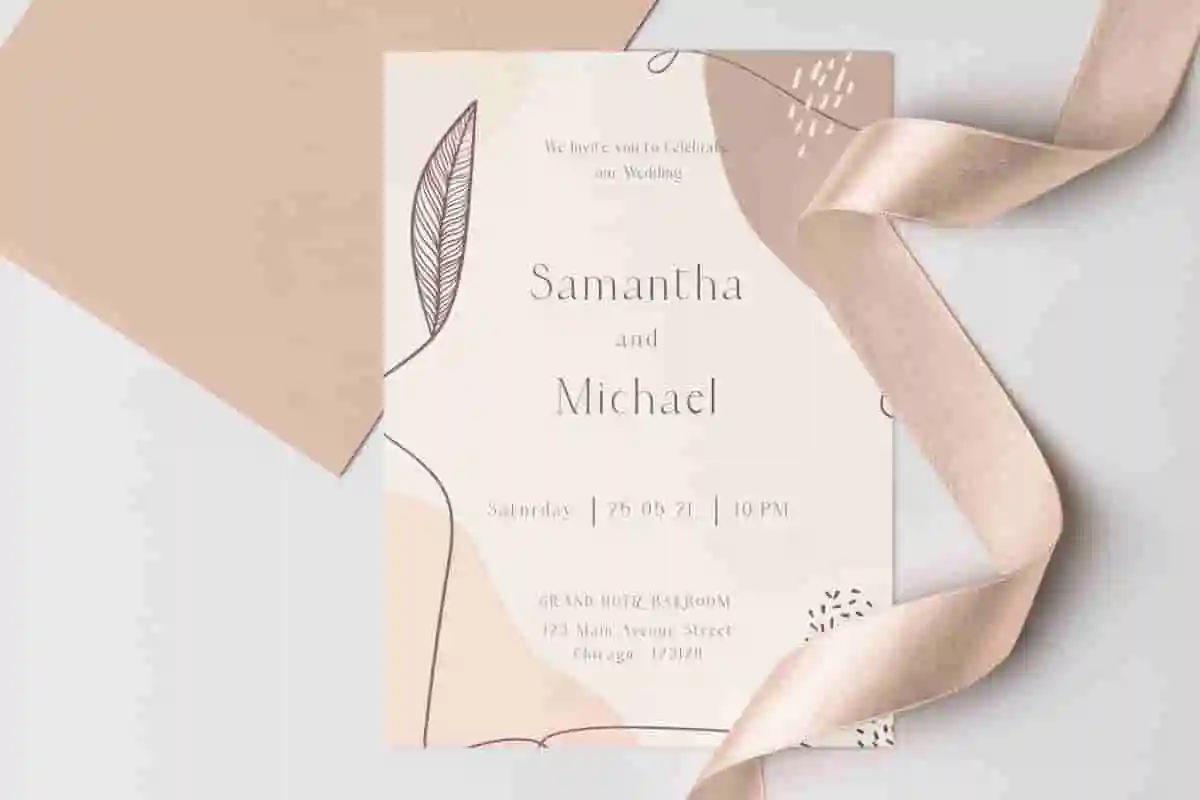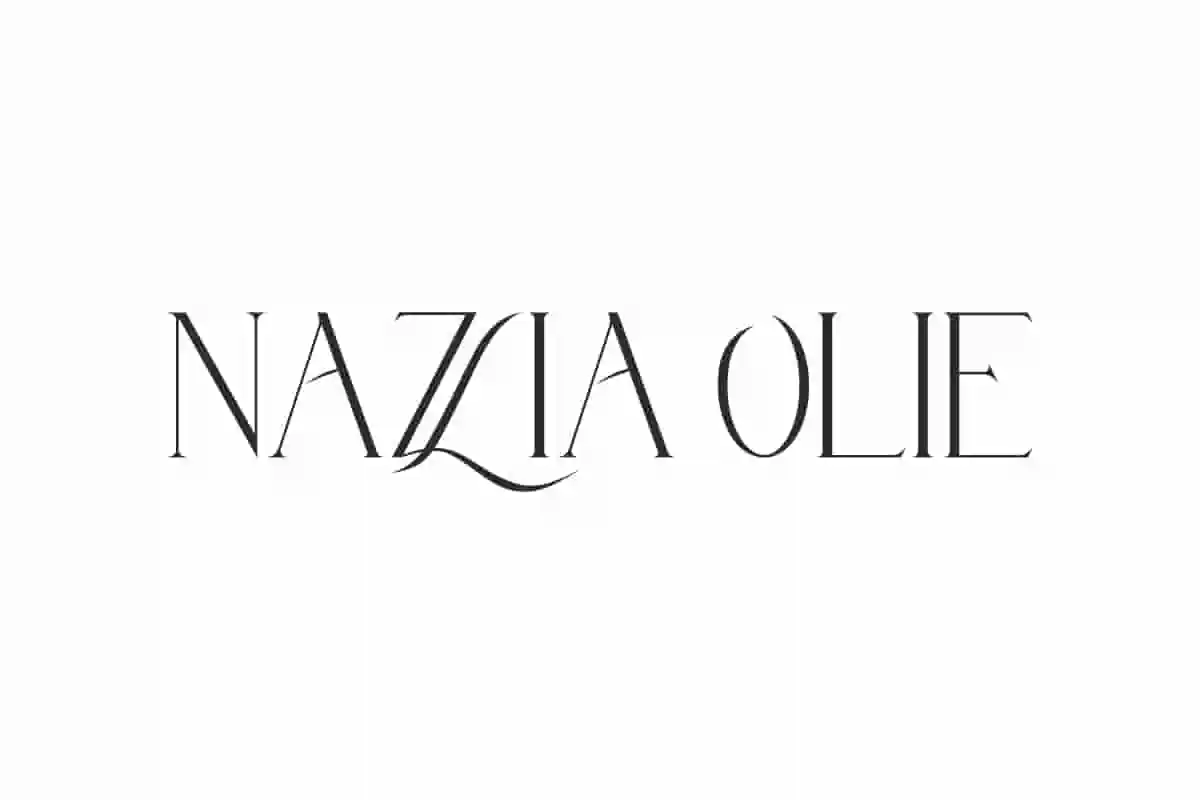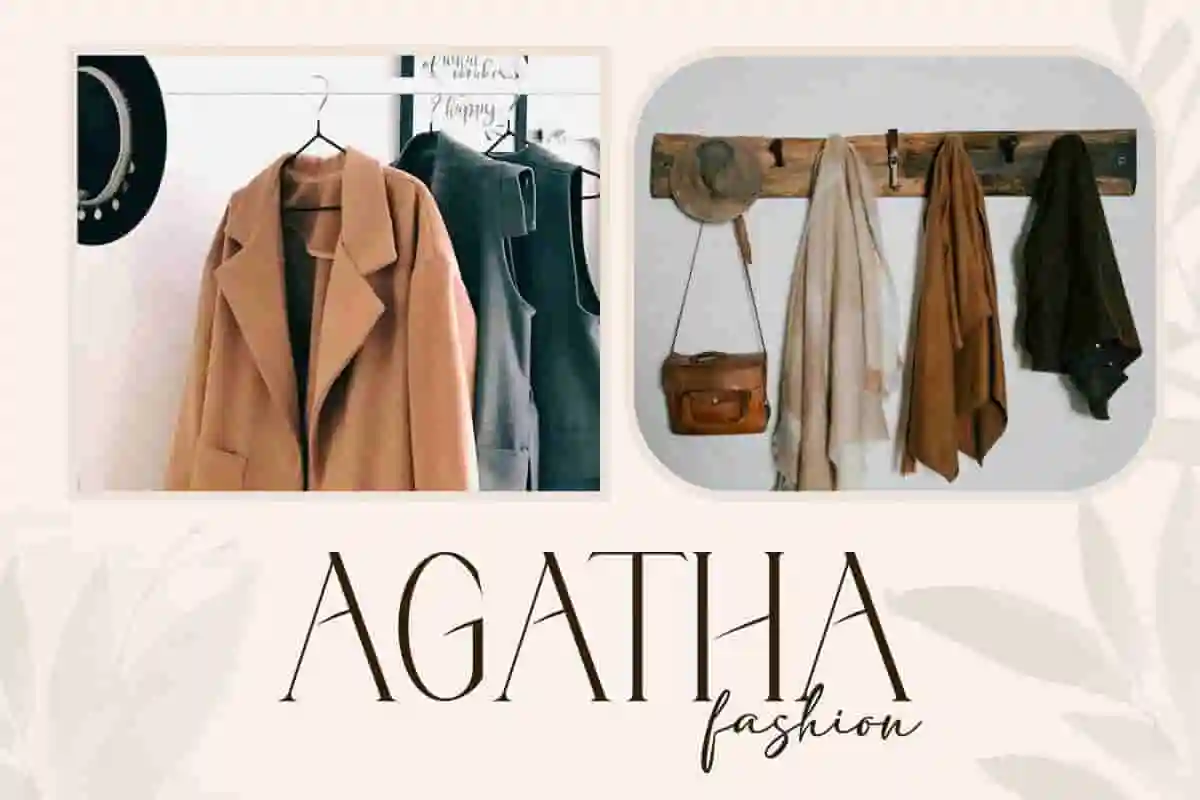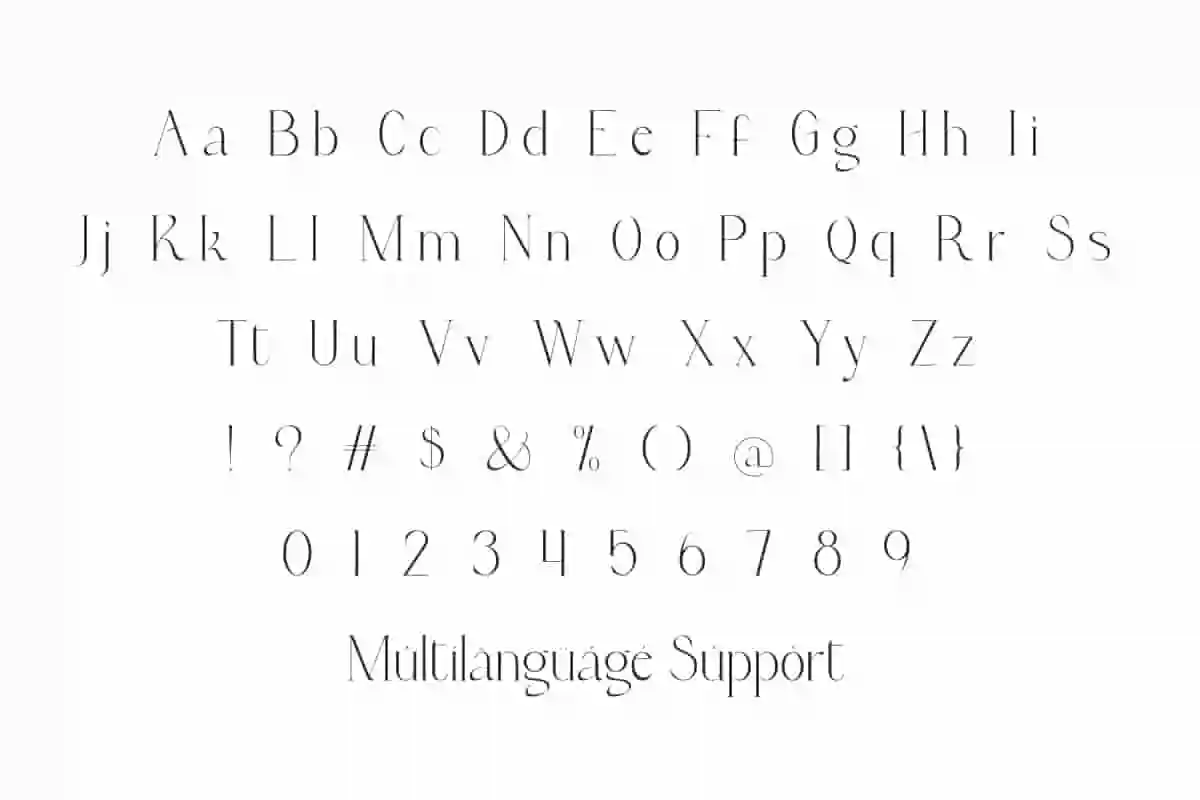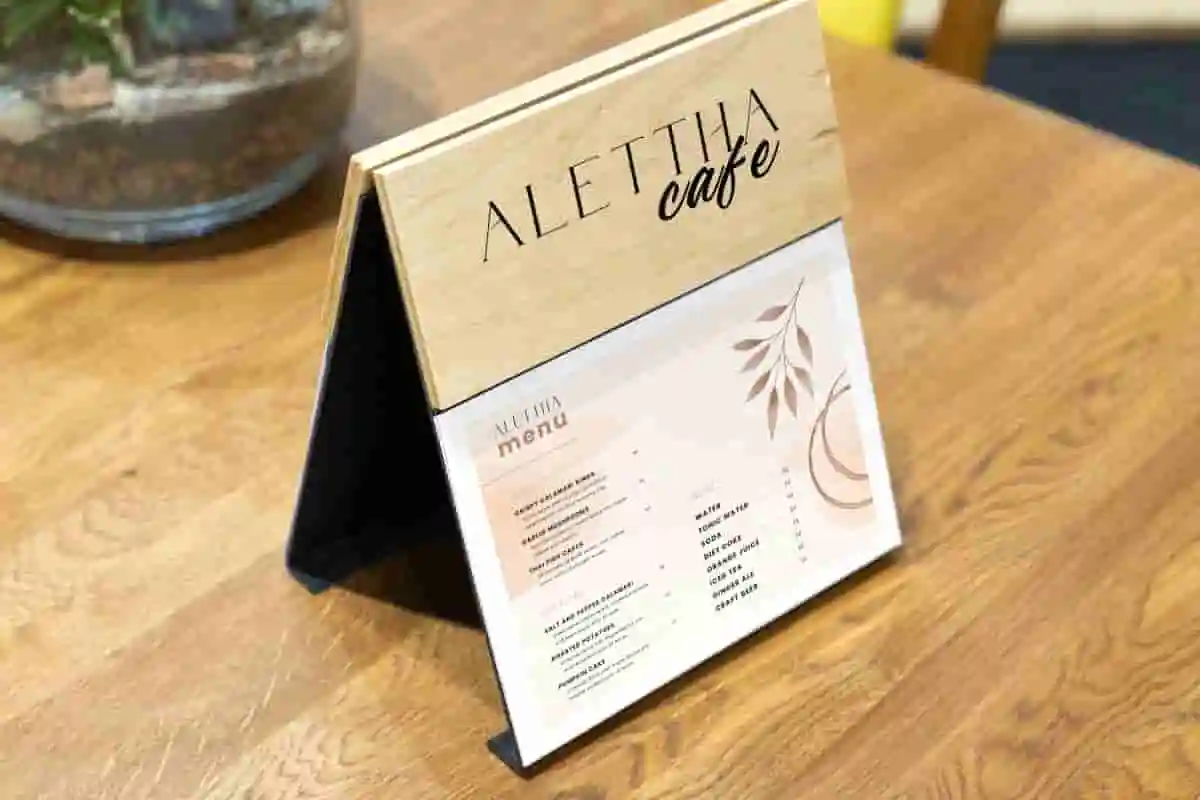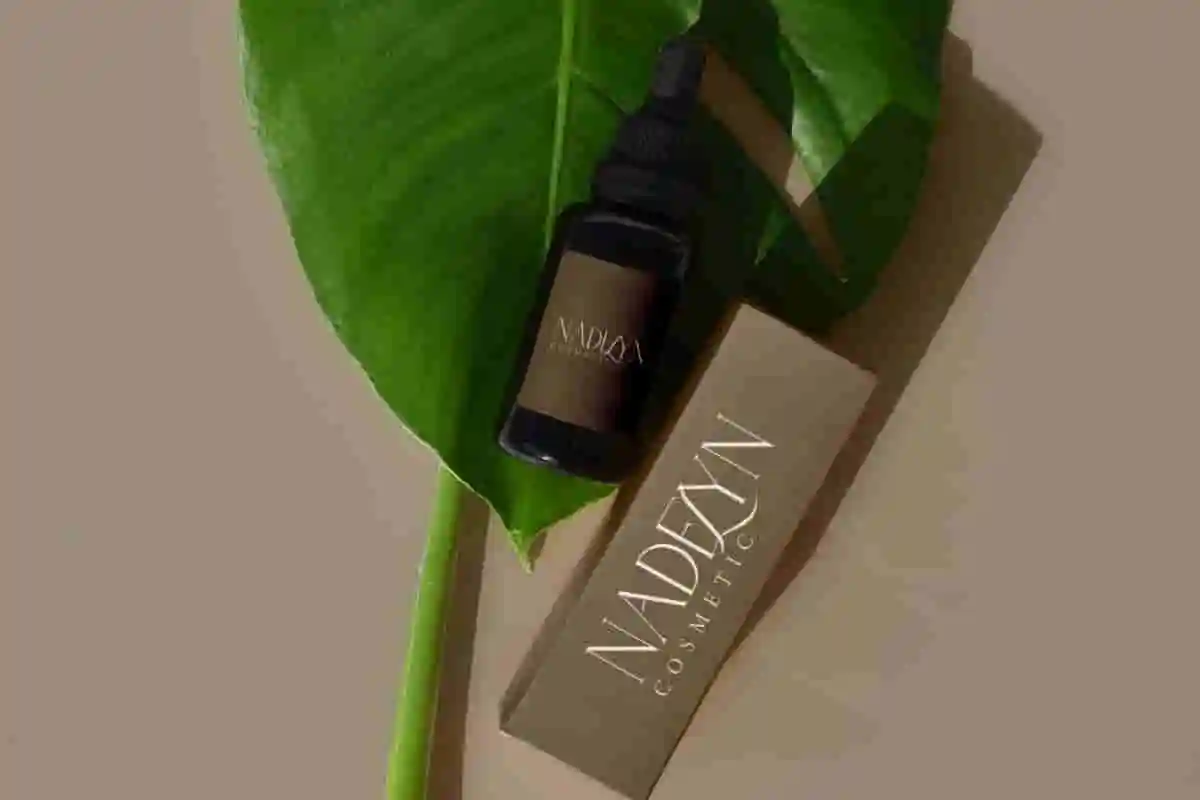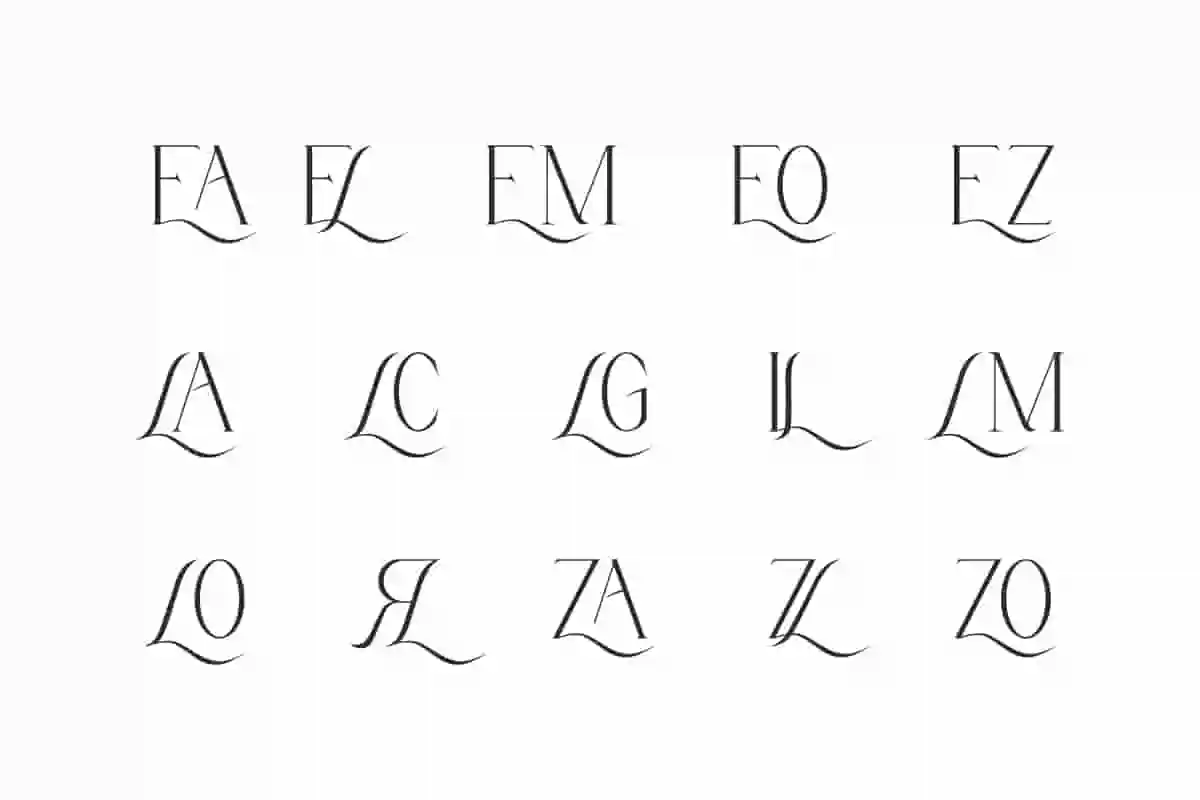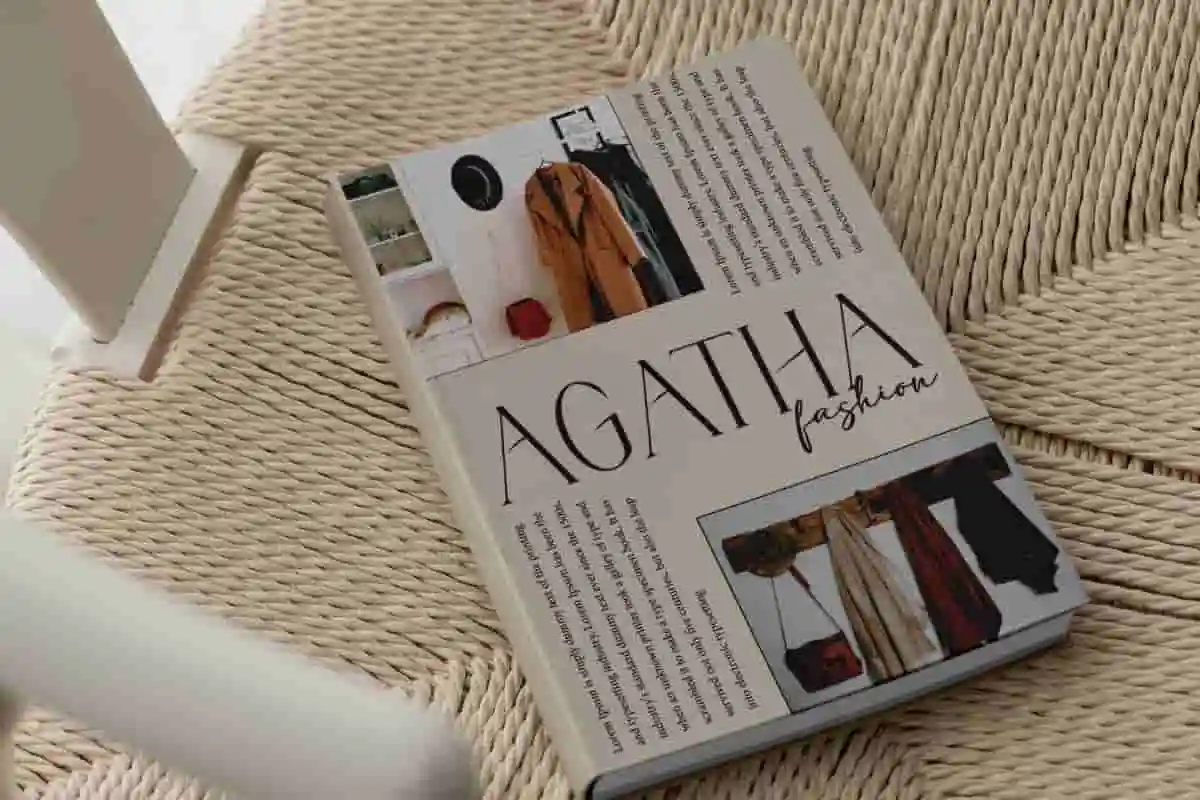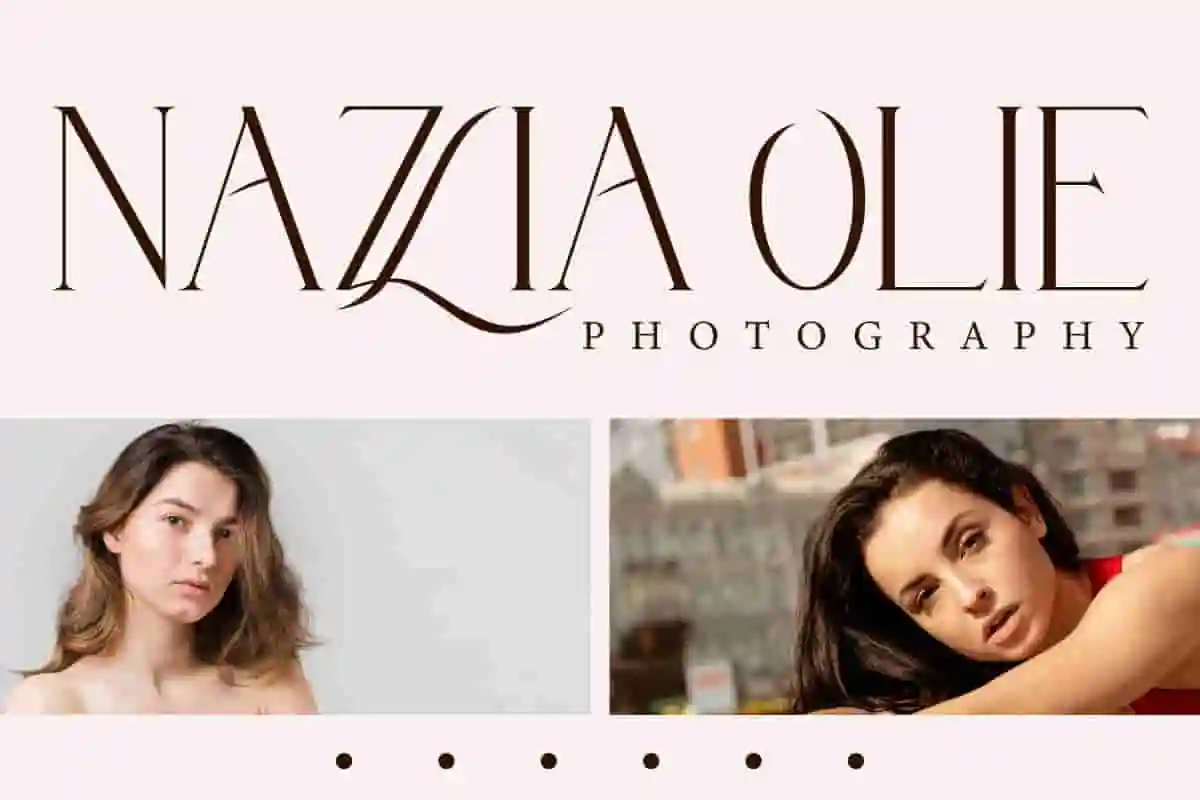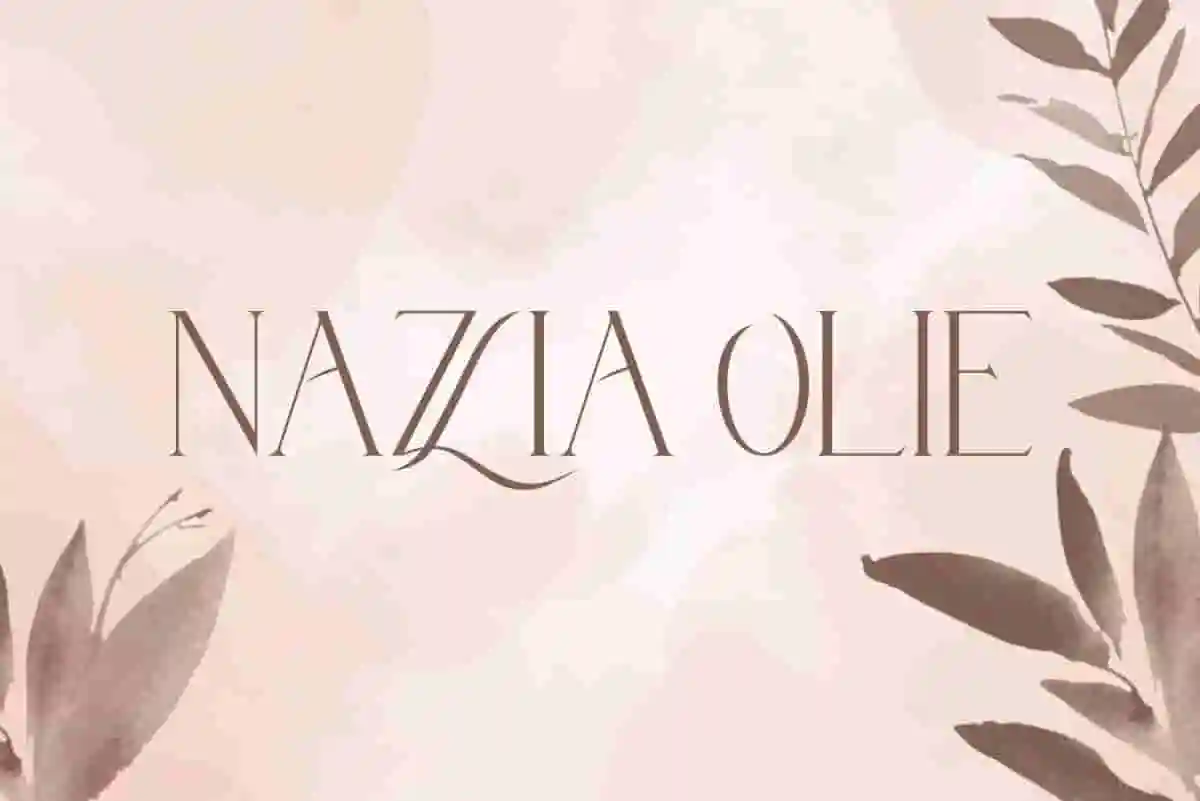
Nazlia Olie Font is a beautiful serif display with stunning ligatures that adds a luxurious style in seconds that instantly adds artistic value to your designs.
Nazlia Olie Font is a modern ligature serif display font with an extra touch of elegance. It can enhance your work through its clean and sophisticated visuals. Perfect for brochure, blogs, covers, flyer, headers, invitation, logos, menu, mockup, packaging, poster, product label, template, title, website, and more.
Nazlia Olie Font includes full set of Uppercase and Lowercase Basic Characters, Numbers, Punctuation, Symbols and Ligature. Timeless elegance wrapped in simplicity has influenced the sleek letters, finding their finishing touch through a delicately handcrafted look. Perfect for cafe, clothing brand, cosmetic, fashion, home furniture, photography, skincare, spa salon, wedding organizer, etc.